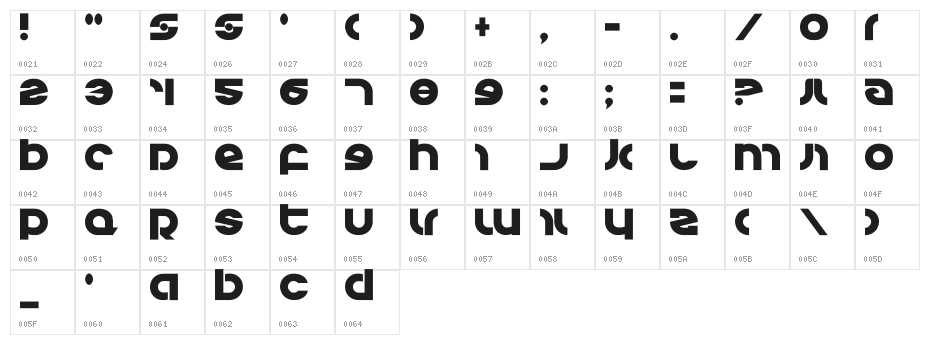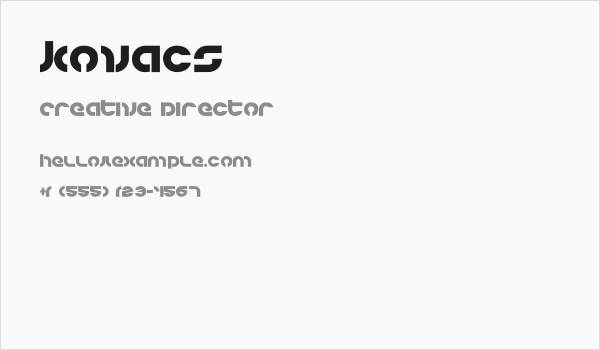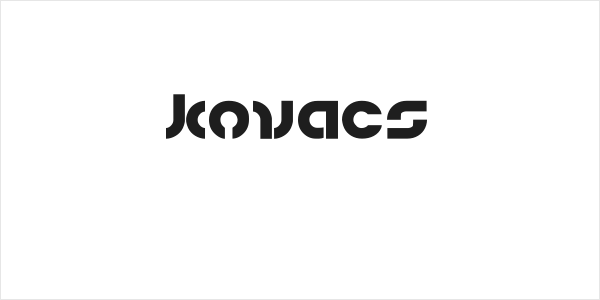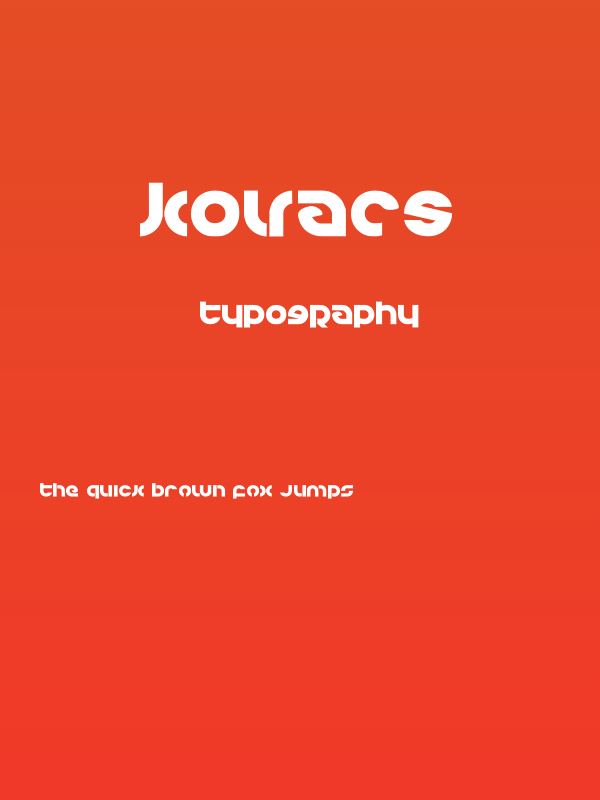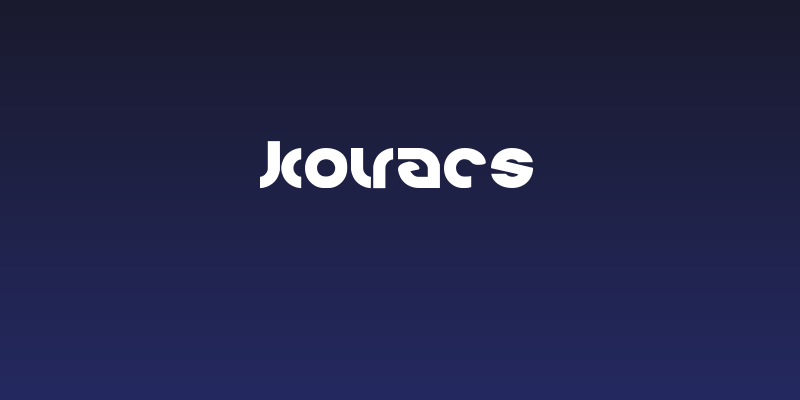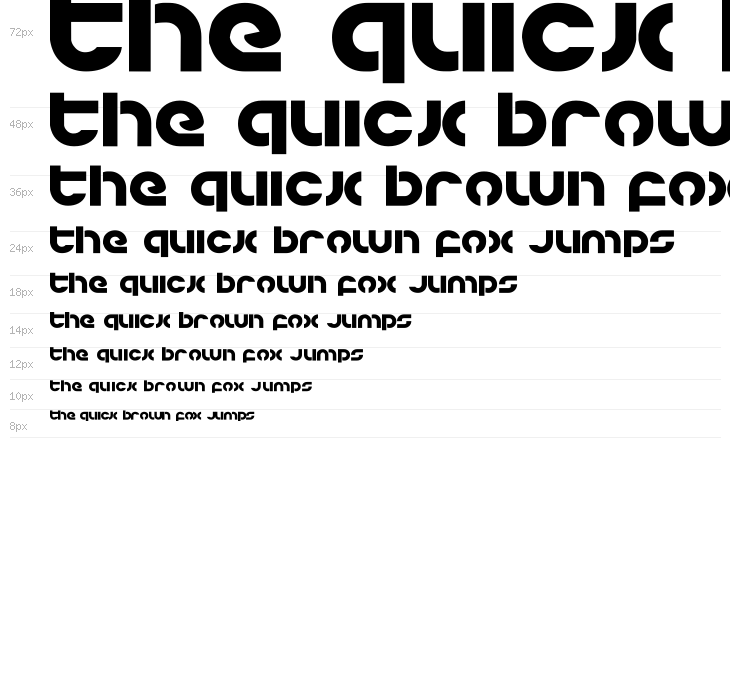
Kovacs Font
Kovacs Description
This font features a bold, geometric design with a futuristic and modern aesthetic. The characters are constructed with thick, uniform strokes and exhibit a high level of symmetry and balance. The use of circular and semi-circular shapes gives it a distinctive, almost mechanical appearance. The uppercase and lowercase letters maintain a consistent style, with some characters featuring unique cutouts and angles that add to its visual interest. The numerals and special characters follow the same design principles, ensuring a cohesive look across all glyphs.
| Proposed Projects | Ideal for technology branding, sci-fi themed projects, modern art posters, and innovative product packaging. |